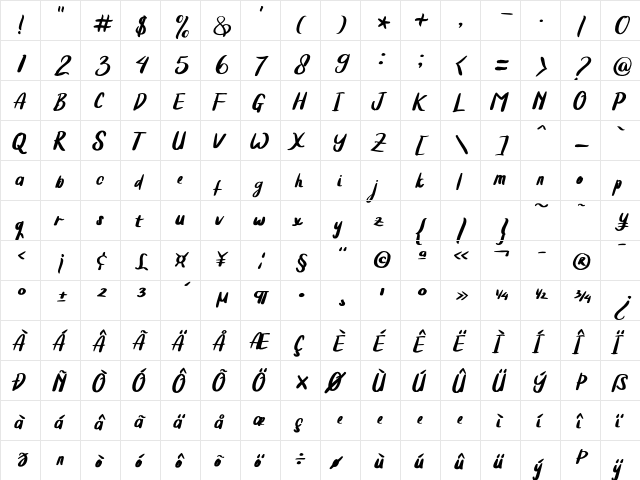
Summer_Clam Regular
Design Context for Summer_Clam Typeface
Summer_Clam is a composed and adaptable typeface that performs quietly and consistently across a wide range of design contexts.